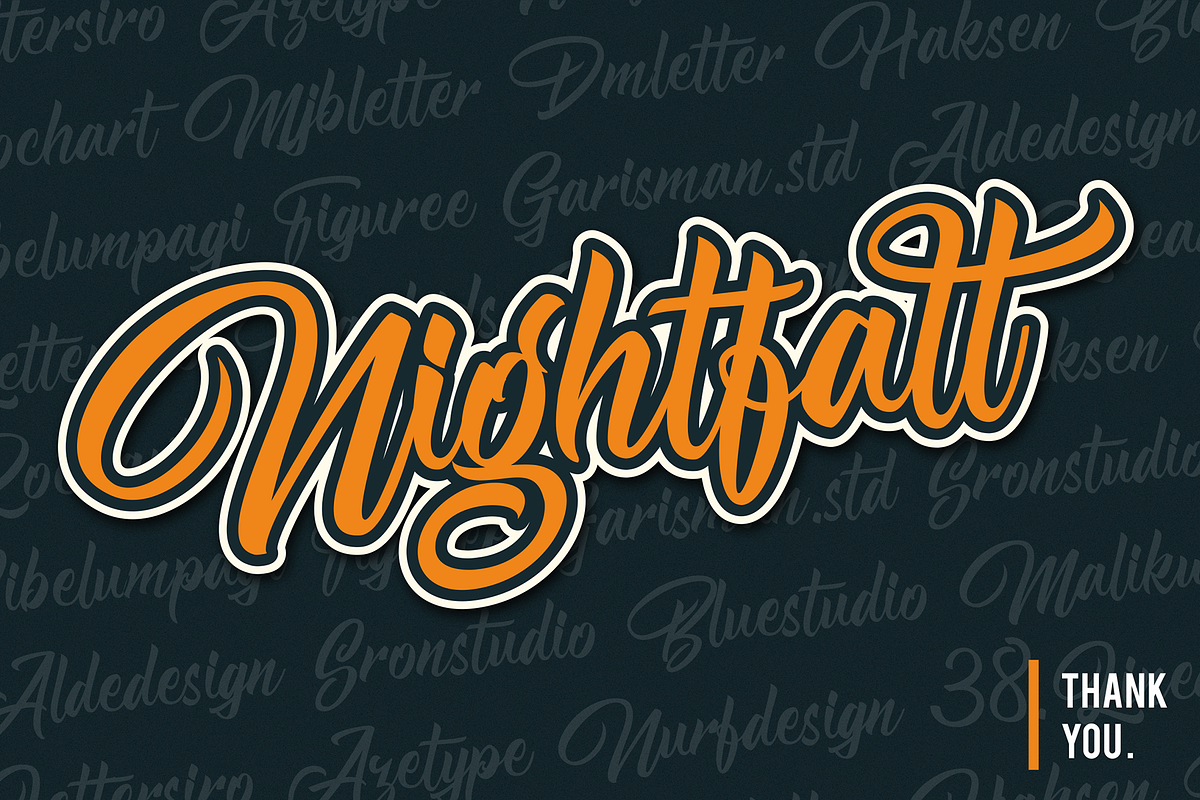
Nightfall Script
Introducing a new font called Nightfall inspired by urban script fonts with sharp and beautiful letters that create fonts that are modern, trendy and elegant. Nightfall came with open type features such stylistic alternates, stylistic sets & ligatures good for logotype, poster, badge, book cover, tshirt design, packaging and any more.
- Stylistic Alternate
- Stylistic Set
- Multilanguage Support